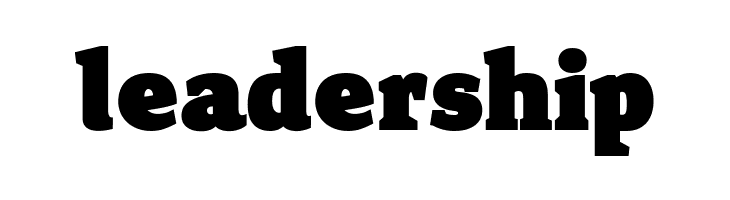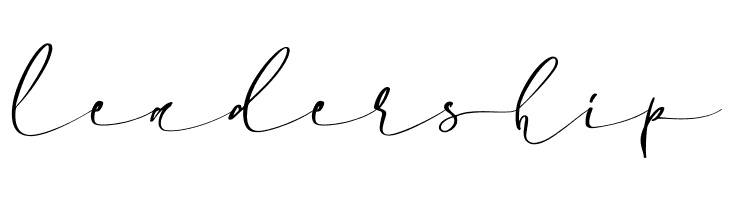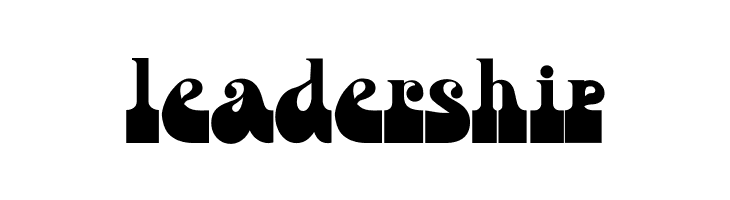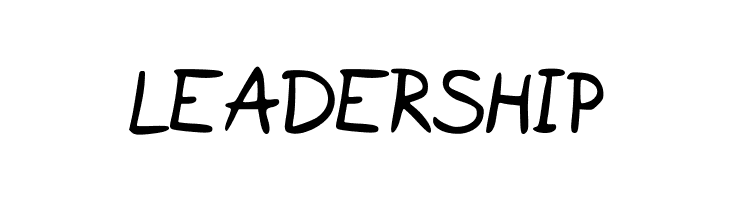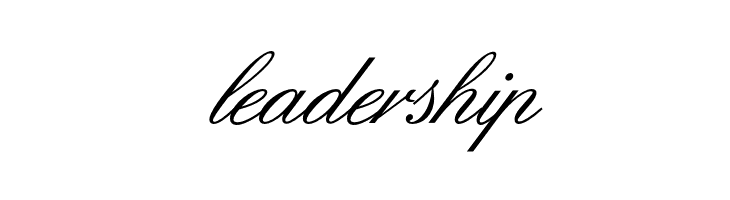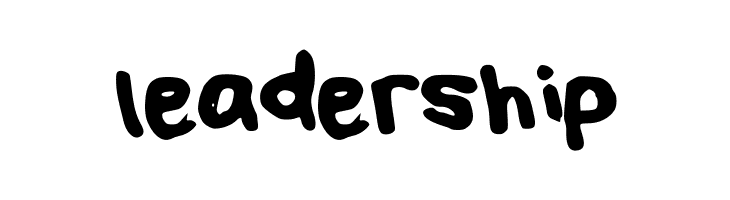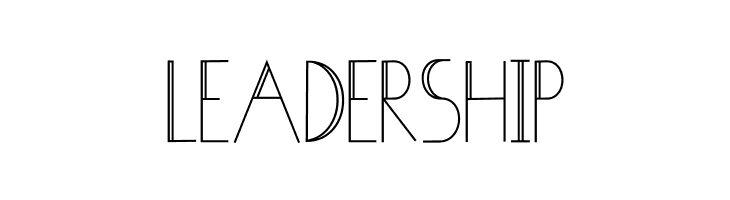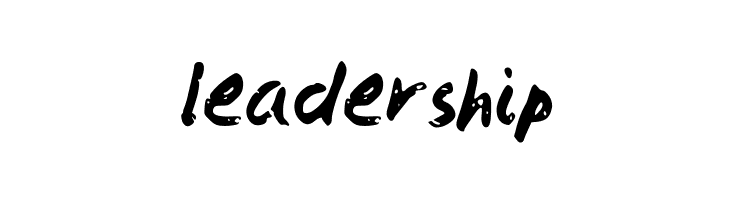
A bold, italicized outline font with a rugged, industrial texture.
A bold, industrial outline font with a riveted, mechanical appearance.
A bold, italic, industrial-style font with a riveted metal plate design.
A bold, industrial font with a metallic, riveted design.
A bold, industrial-style font with geometric shapes and textured cut-outs.
A bold, three-dimensional font with an industrial, vintage aesthetic.
A bold, industrial font with a bolted, mechanical design.
A flowing, cursive script font with elegant, interconnected letters.
A bold, textured script font with a hand-painted, artistic style.
A geometric, art deco-inspired font with tall, narrow letterforms and sharp angles.
A modern, geometric font with an Art Deco influence, featuring thin, elongated letterforms.
A graceful and flowing script font with elegant, connected cursive letters.
A sleek, modern font with tall, narrow letters and a minimalist aesthetic.
A playful, modern handwritten font with tall, narrow characters and rounded edges.
A bold, three-dimensional font with sharp angles and clean lines.
A bold slab serif font with high contrast and a vintage-modern appeal.
A playful, hand-drawn font with quirky, irregular letterforms.
A bold, three-dimensional font with a modern, shadowed design.
Expressive, mask-inspired decorative font with bold, graphic faces.
A geometric, angular font with a modern, industrial style.
A pixelated, grid-based font with a retro digital aesthetic.
A pixelated, monospaced font with a retro digital aesthetic.
A graceful and elegant cursive font with flowing, connected letters.
An elegant and flowing script font with a classic, sophisticated style.
A bold, impactful font with thick strokes and a slightly condensed style.